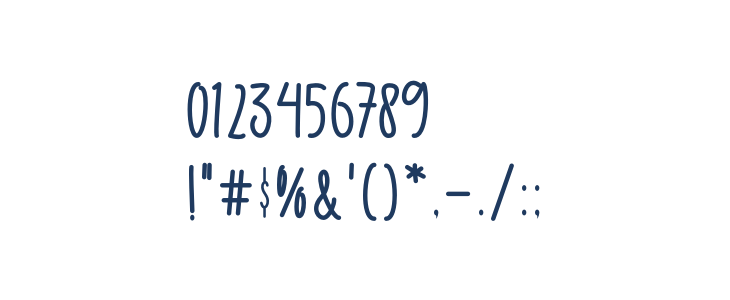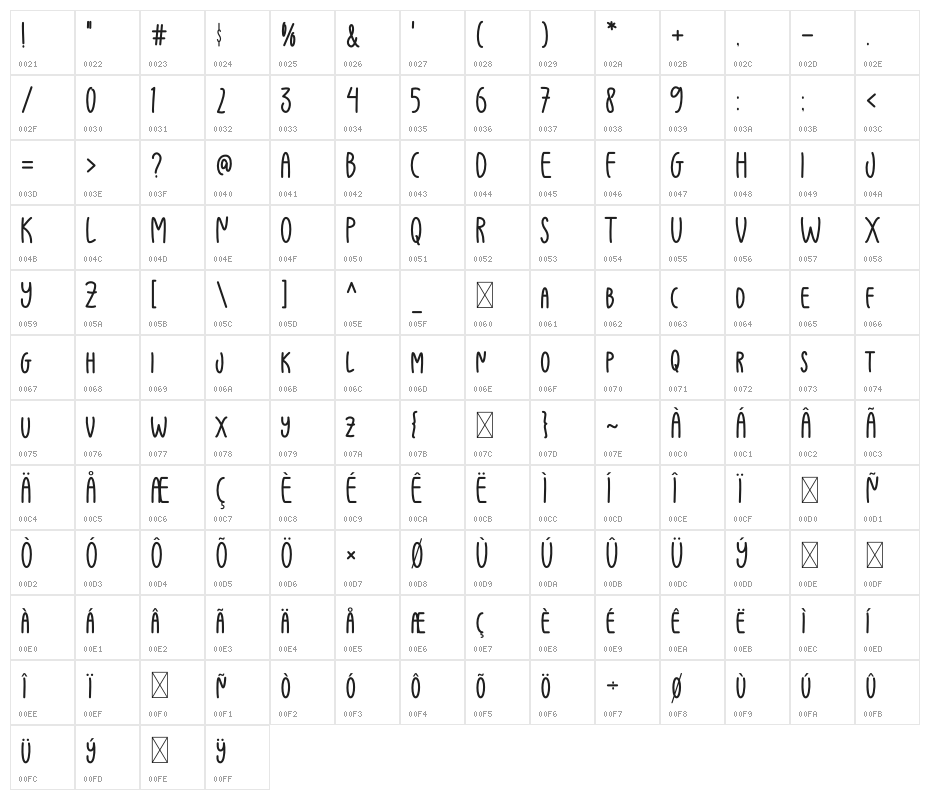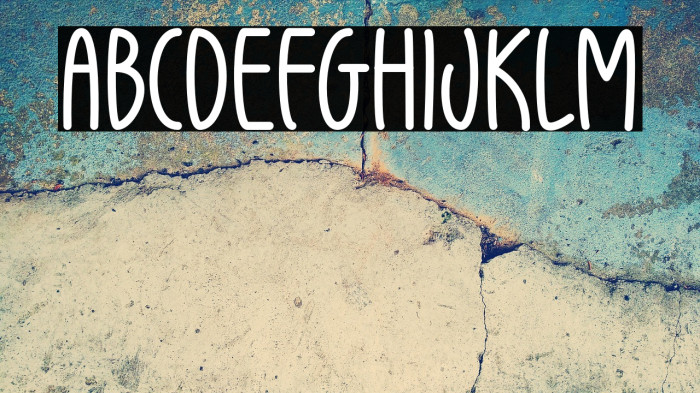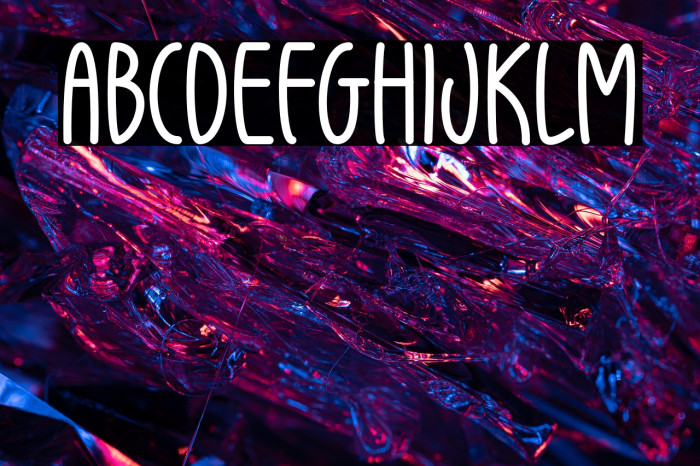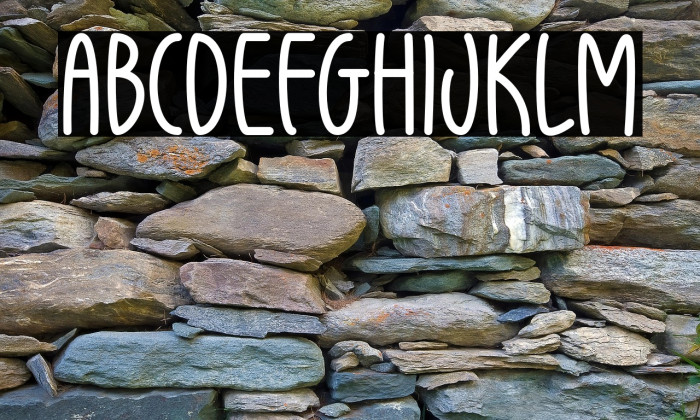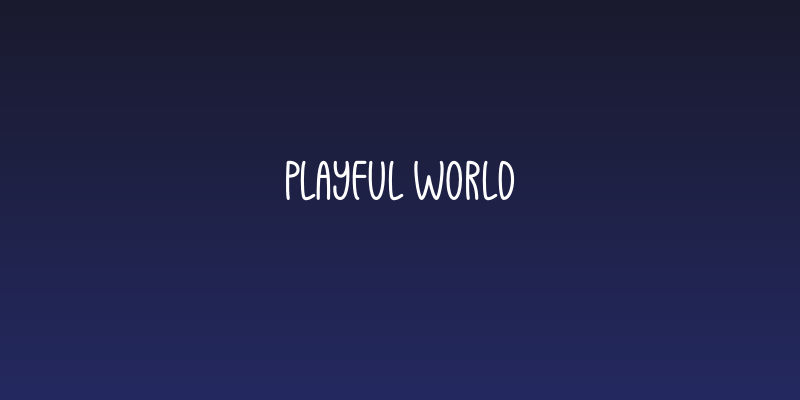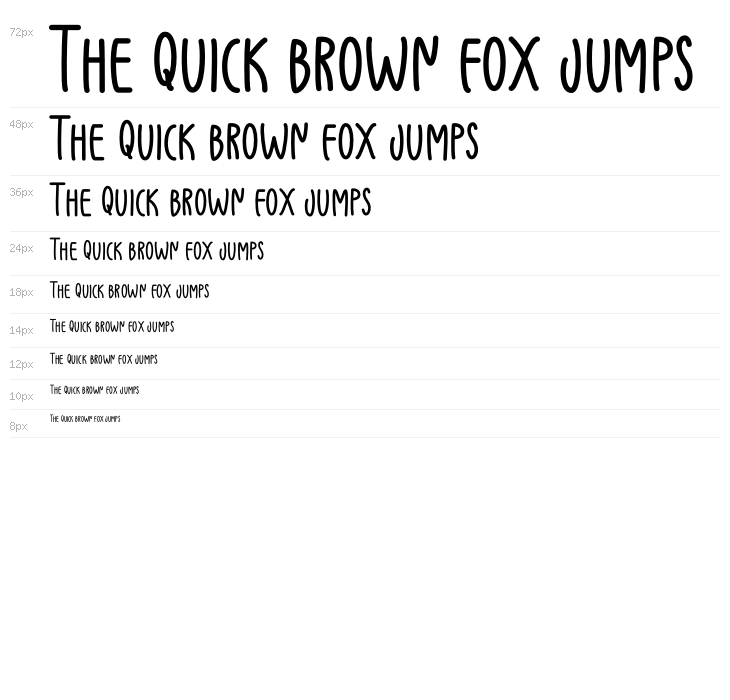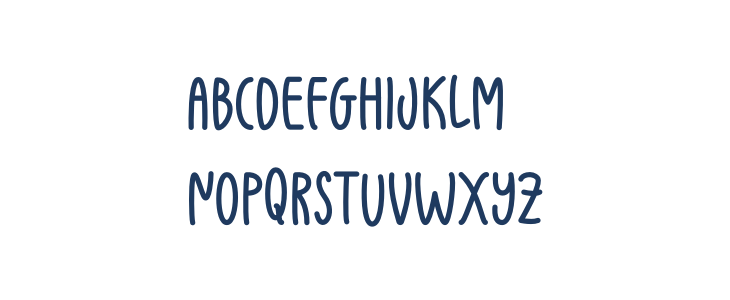
Playful World Font
Playful World Description
This font exudes a playful and whimsical character, featuring rounded and slightly irregular letterforms that convey a sense of fun and creativity. The strokes are consistent in width, giving it a uniform appearance while maintaining a hand-drawn feel. The uppercase and lowercase letters are well-balanced, with a slight tilt that adds to its casual charm. Numbers and special characters are designed to match the overall playful aesthetic, making it suitable for projects that require a friendly and approachable look.
| Proposed Projects | Ideal for children's books, playful branding, greeting cards, and creative posters. |